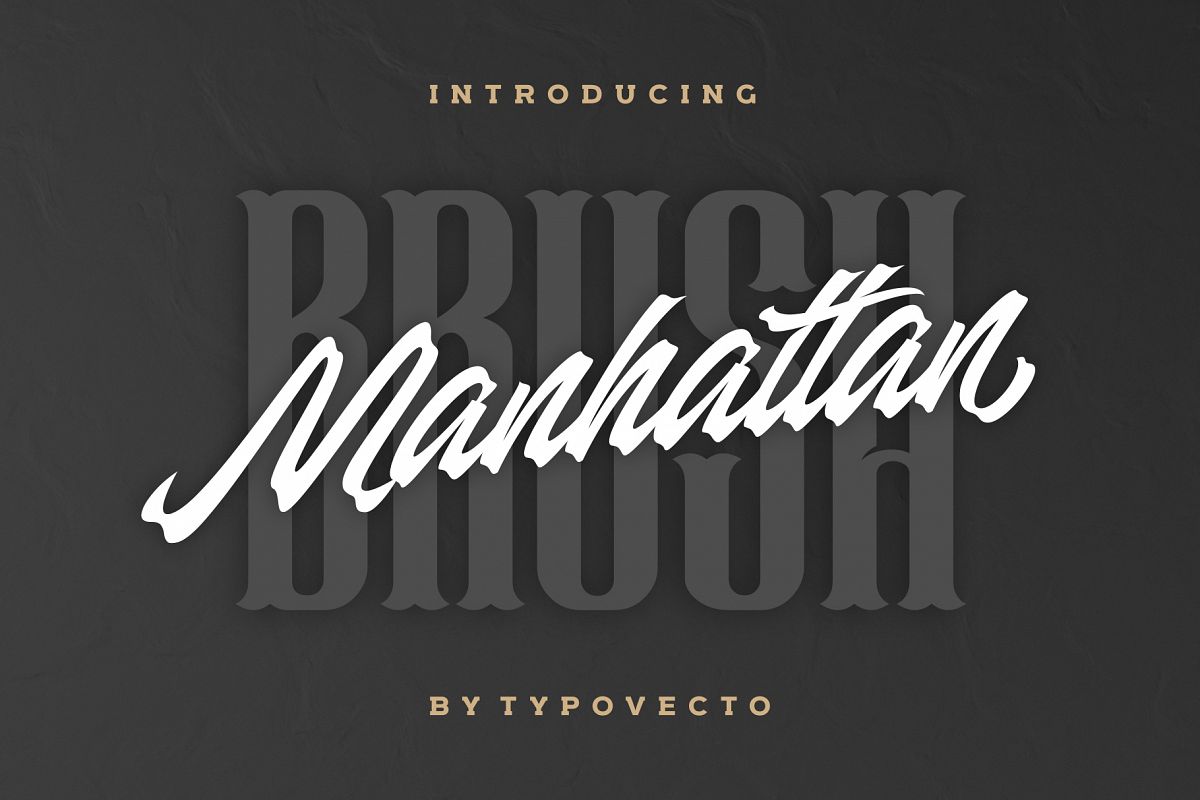
Manhattan Brush - Ink Script Font
Manhattan Brush
MANHATTAN BRUSH SCRIPT is the first commercial typeface from Tirta Craft. With classic, elegant, vintage, luxury, and clean feel.WHAT YOU GET
MANHATTAN BRUSH Typeface is suitable typeface for various purposes like logotype, signage, label, poster, dropcap, titles, letterhead, book cover and etc.